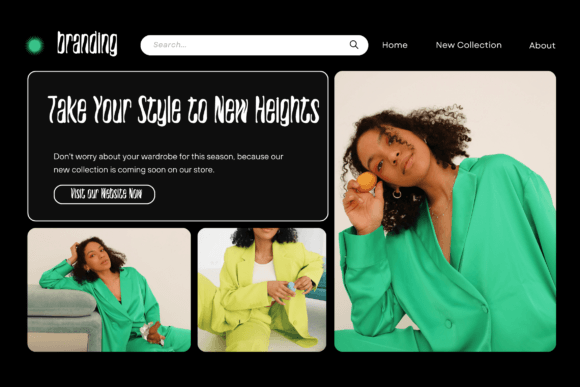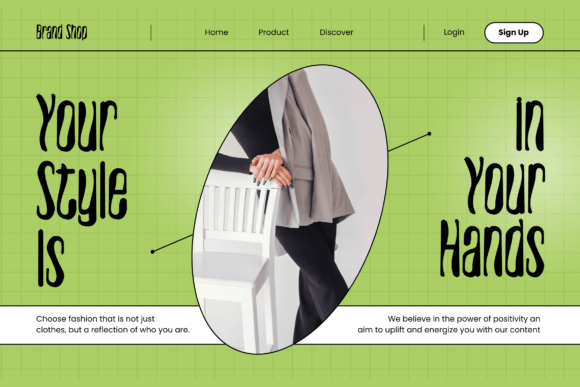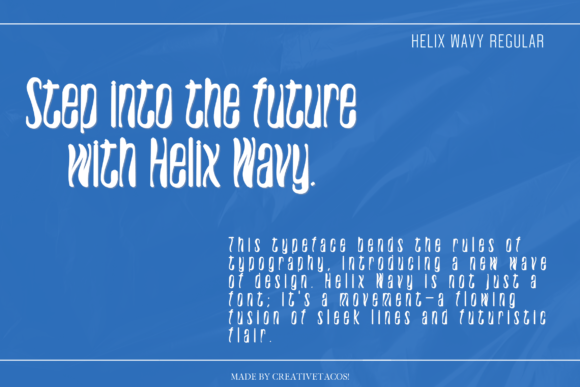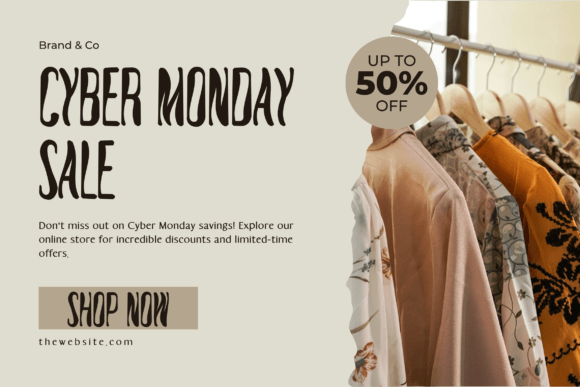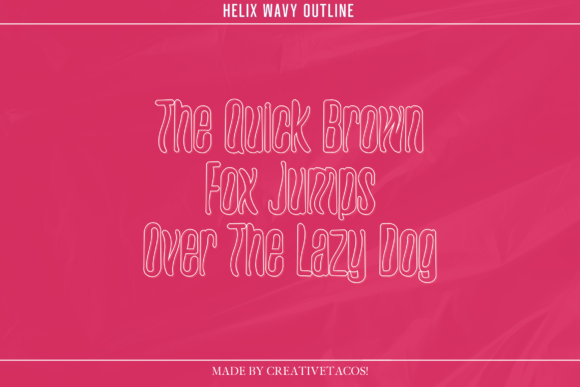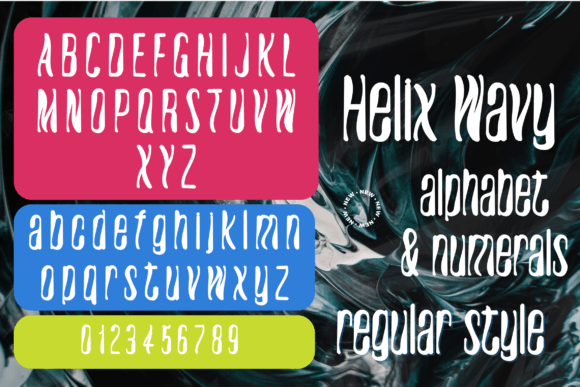
Introducing Helix Wavy Font: The Ultimate Futuristic Typeface for Modern Design
In the realm of digital design, a font can make all the difference in setting your creative project apart from the rest. This is where the Helix Wavy Font comes into play, revolutionizing the way we perceive modern aesthetics. This stylish and innovative typeface is specifically crafted for the digital age, boasting a unique wavy design that guarantees a standout identity for your creative endeavors.
The Unique Character of Helix Wavy Font
What sets the Helix Wavy Font apart is its sleek, futuristic aura, making it an impeccable fit for edgy logos and captivating titles. Each letter in this font family is designed with a distinctive wavy pattern, infusing a sense of dynamism and movement into your designs. This unique character lends an ultra-modern touch to any piece of work that demands a contemporary flourish, making it a go-to choice for designers looking to push the boundaries of creativity.
Unlimited Versatility for Various Design Projects
The Helix Wavy Futuristic Font presents unlimited versatility, effortlessly adapting to various design needs. Whether you’re working on tech-driven designs or projects steeped in the world of sci-fi, this font style fits seamlessly into your creative vision. From intriguing social media graphics and catchy posters to engaging website headers and innovative product packaging, the Helix Wavy Font is the perfect companion for any design project that requires a modern edge.
Crafting Standout Designs with Helix Wavy Font
Experience the stirring impact of using the Helix Wavy Font and watch your designs truly stand out in a crowded digital landscape. This font style is not just about aesthetics; it’s about creating an identity that resonates with your audience. The wavy design of each letter not only adds a touch of sophistication but also captures attention, making your designs more engaging and memorable.
Why Choose Helix Wavy Font?
- Unique Design: Each letter boasts a unique wavy design, ensuring your projects have a distinct identity.
- Futuristic Aura: The sleek, modern look of the font makes it perfect for edgy logos and titles.
- Versatility: Suitable for a wide range of design projects, from tech and sci-fi to social media graphics and product packaging.
- Modern Touch: Adds an ultra-modern flair to any design, making it stand out.
Applications of Helix Wavy Font
The applications of the Helix Wavy Font are vast and varied. Here are a few examples of how you can utilize this versatile typeface:
- Branding and Logos: Create memorable logos that capture the essence of your brand.
- Social Media Graphics: Elevate your social media presence with eye-catching graphics.
- Posters and Flyers: Design captivating posters and flyers that grab attention.
- Website Headers: Make a lasting impression with engaging website headers.
- Product Packaging: Add a modern touch to your product packaging and stand out in the market.
The Helix Wavy Font is more than just a typeface; it’s a design statement. With its unique wavy design, futuristic aura, and unlimited versatility, it’s the perfect tool for designers and crafters looking to infuse a modern edge into their creative projects. Whether you’re aiming to create standout logos, captivating titles, or engaging designs, the Helix Wavy Font is your gateway to a world of limitless creativity. Embrace the future of design with this innovative font and watch your creative endeavors soar to new heights.